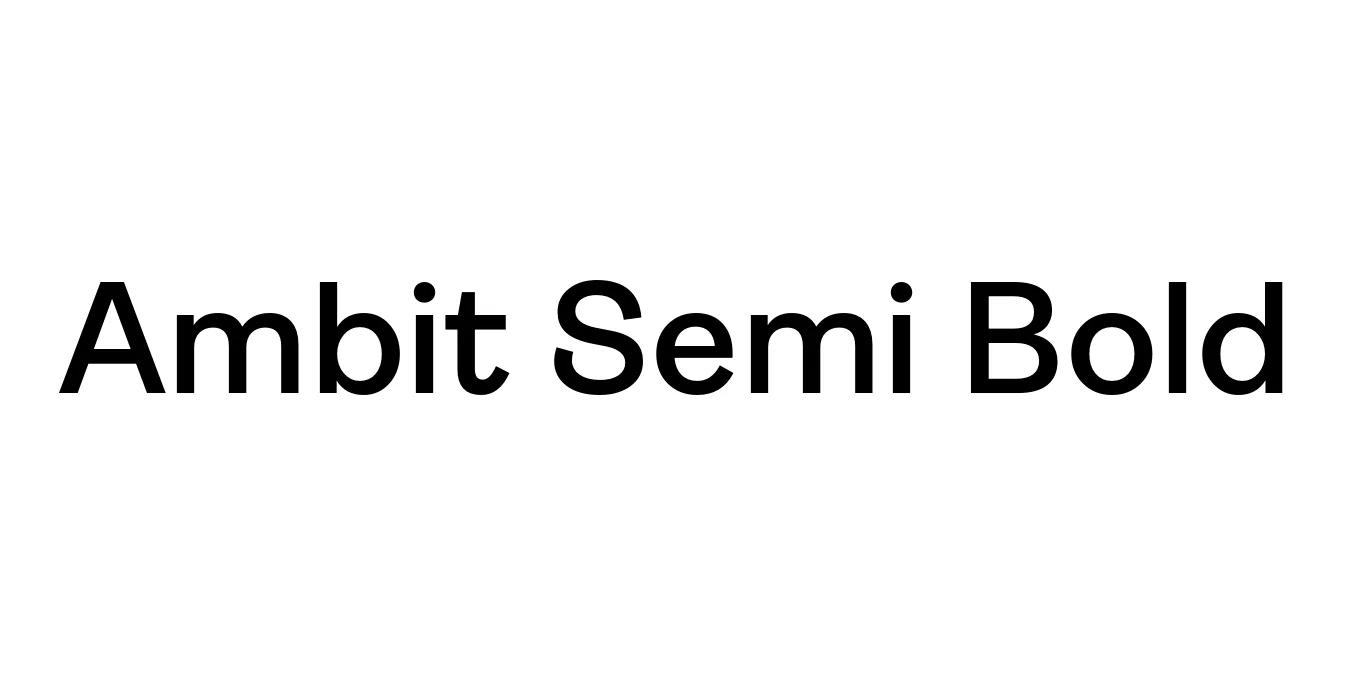
Ambit Semi Bold
Designed by Cobi Levy
Ambit is a modern and distinctive sans-serif typeface designed by Cobi Levy and published by CoType Foundry. It was inspired by early 20th-century grotesque fonts but reimagined with a contemporary twist. The hallmark of Ambit is its unique curly terminals and eccentric proportions, which give it a playful yet sophisticated personality that stands out from more traditional geometric sans-serifs.
The Ambit Semi Bold weight serves as a versatile middle ground, offering enough visual weight for impactful headlines while remaining legible in shorter blocks of body text. Its balanced construction and high x-height make it an excellent choice for digital environments, providing a clean and approachable feel for brands that want to balance authority with a friendly, modern edge.
Ambit Semi Bold Best Uses
Creates a unique and memorable visual identity for tech startups and lifestyle brands.
Excellent for magazine headings and pull quotes that require a clean, modern aesthetic.
Highly legible for web headers and mobile application menus.
Perfect for bold social media graphics and promotional posters.